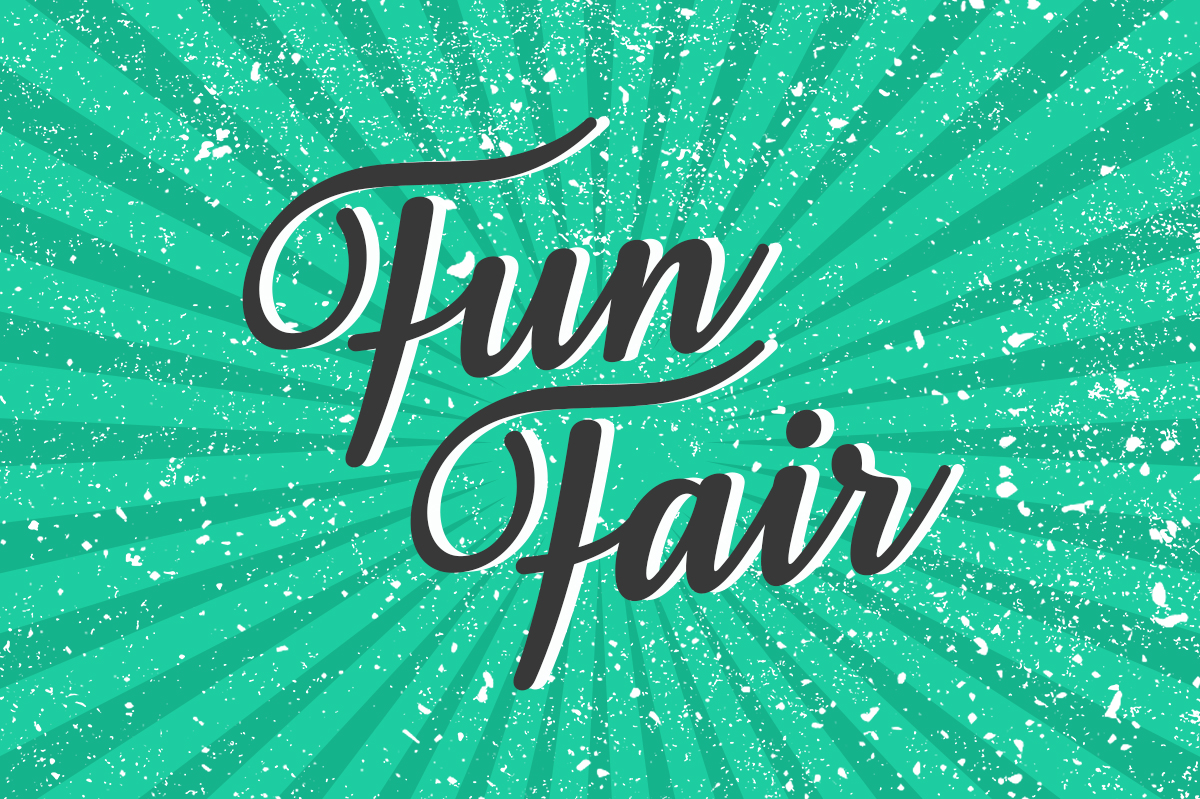
Fun Fair Font
Fun Fair is an awesome vintage inspired script font, perfect for retro designs with a modern twist. This legible script font approaches calligraphy style simply, with a discerning eye towards swashes and flourishes.